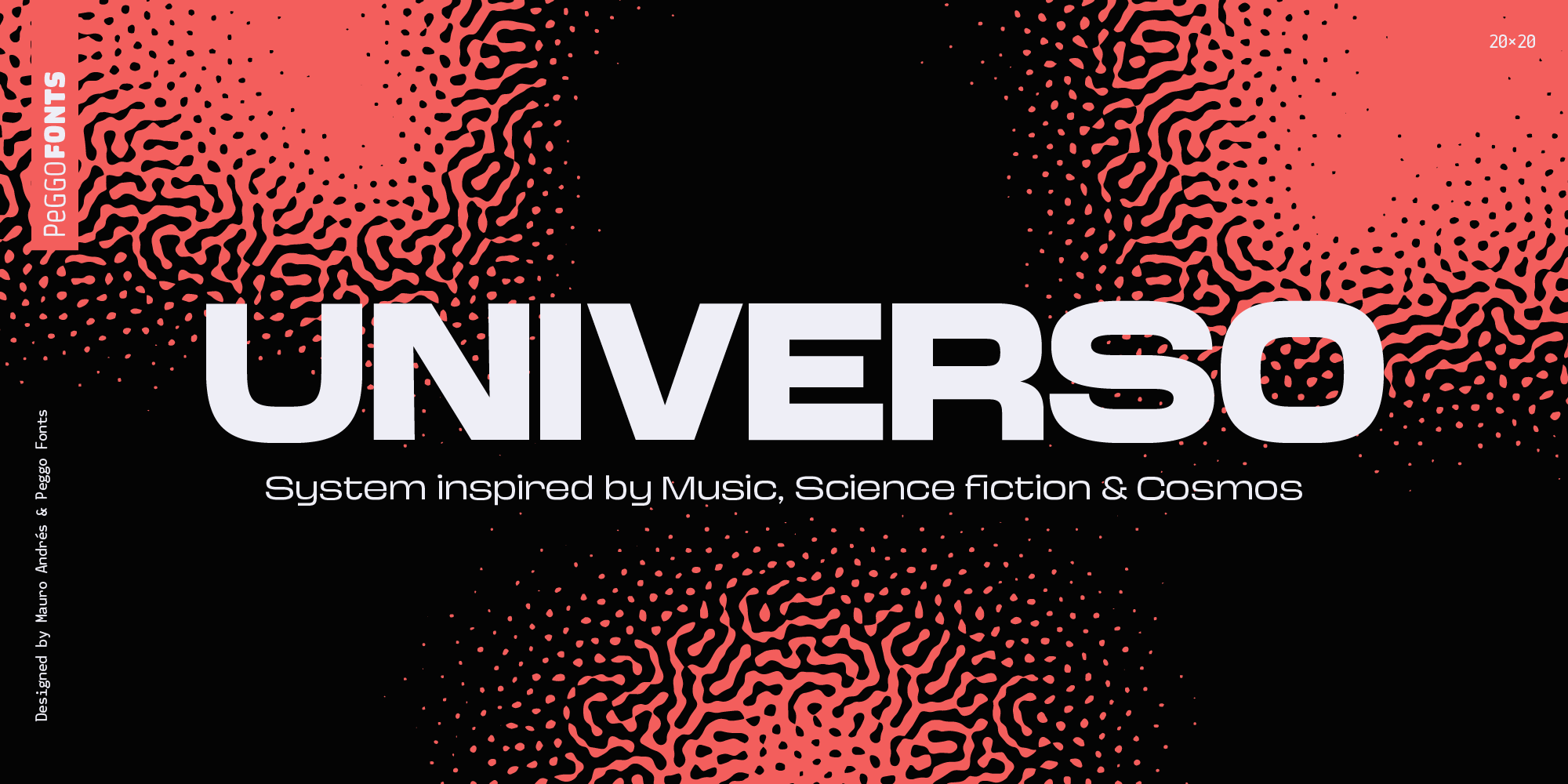
Discover the perfect harmony of geometric precision and functional elegance with Universo Font Free Download – a versatile sans-serif typeface inspired by mid-century Swiss design principles. This clean, adaptable font family delivers exceptional readability across all media, making it ideal for corporate branding, editorial layouts, and digital interfaces.
Why Universo Font Excels
Pure geometric letterforms with subtle optical corrections
Multiple weights from thin to black
Perfect readability in both display and text sizes
Neutral yet distinctive character
Extended language support (Western & Central European)
OpenType features including alternates
Optimized for UI/UX applications
Corporate identity systems
Technical documentation
Modern editorial design
Digital product interfaces
Architectural presentations
Design Tip: Use tight letter-spacing for headlines (-10 to -20) and generous spacing for body text (10-15) for optimal impact!